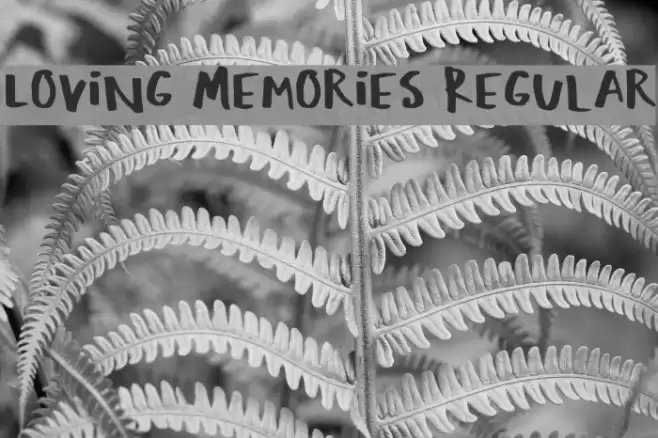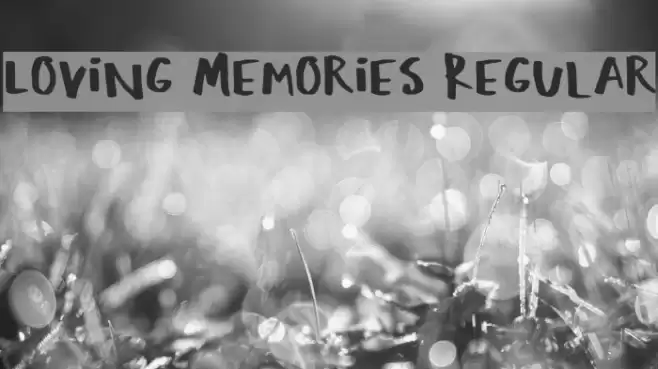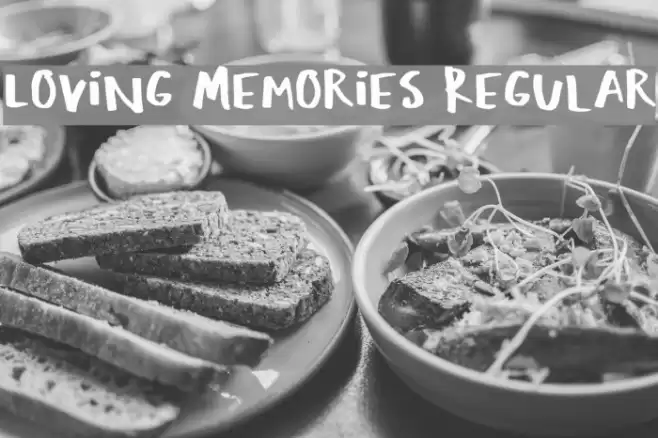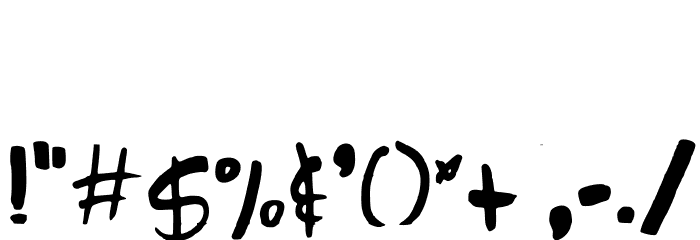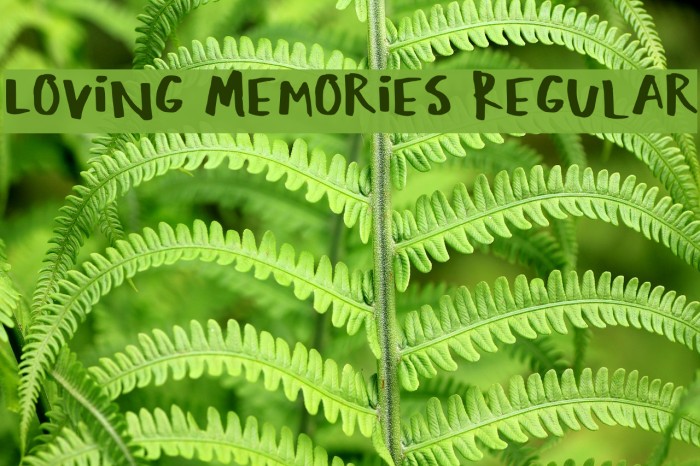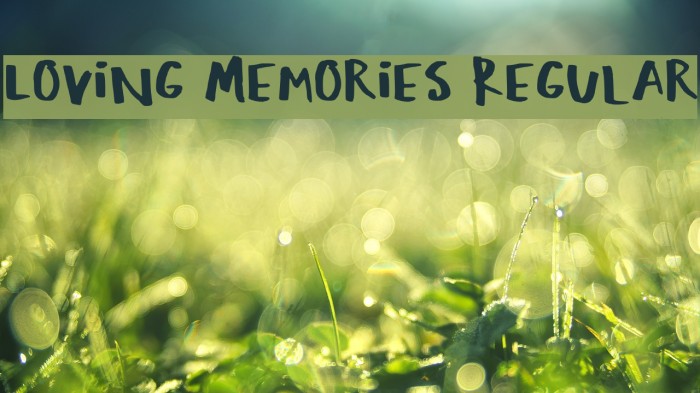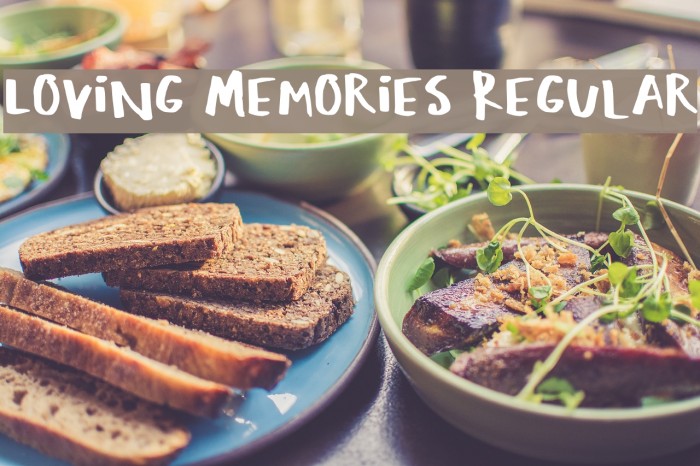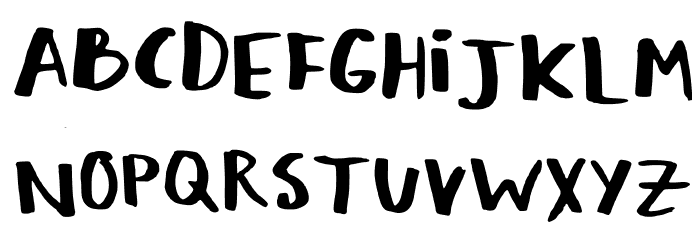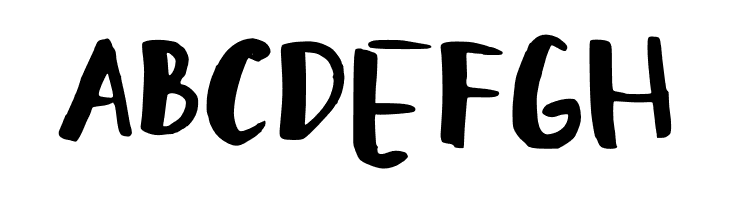
Loving Memories Regular Font
Loving Memories Regular Description
This font features a playful and casual handwritten style, characterized by its bold and slightly irregular strokes. The letters have a dynamic flow, with varying thickness that adds a lively and informal touch. The uppercase and lowercase letters maintain a consistent style, with a slight tilt that enhances the handwritten feel. The numbers and special characters are crafted with the same playful approach, making them suitable for creative and informal projects. The overall appearance is friendly and approachable, making it ideal for designs that require a personal touch.
A bold, playful handwritten font with dynamic and irregular strokes from Uncategorized fonts.
- Proposed Projects: Ideal for greeting cards, invitations, children's books, and playful branding projects.
- Overall Style: Casual
- Use Case: Headlines, Logos, Invitations